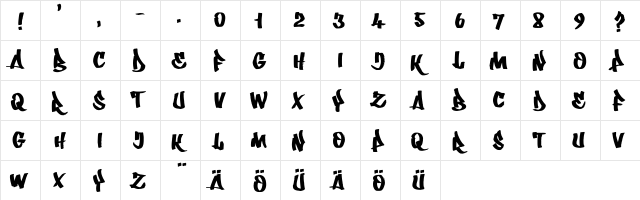
Whatka Regular
Design Context for Whatka Typeface
Whatka is a composed and adaptable typeface that performs quietly and consistently across a wide range of design contexts.